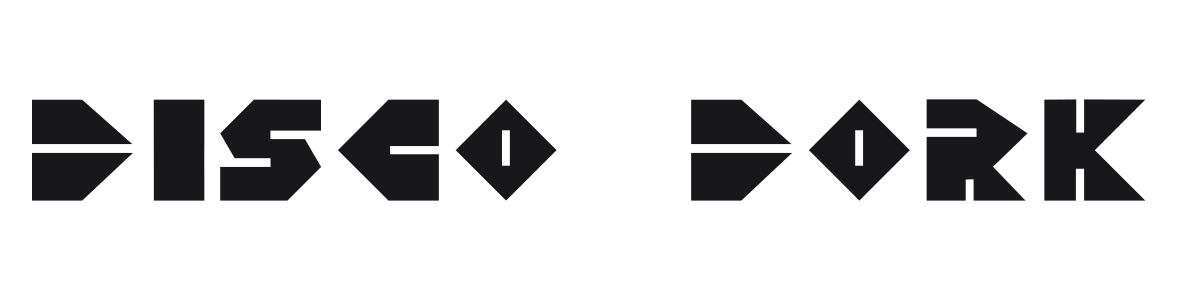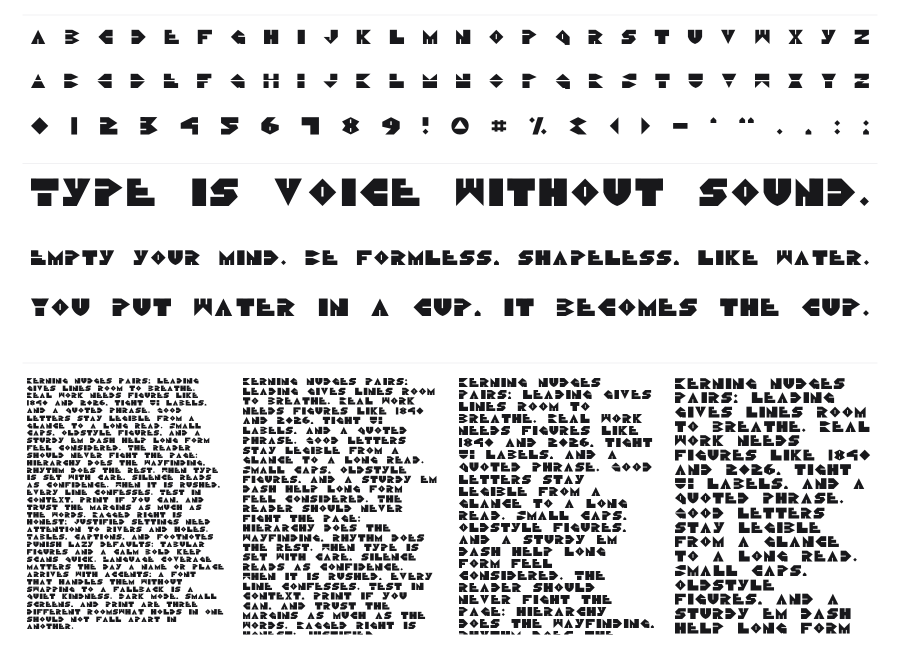
Disco Dork
Disco Dork is a bold geometric display face built from chunky rectangular forms with angular wedge cutouts at stroke intersections. The notched construction gives it an unmistakable 1970s disco flavor, somewhere between a nightclub marquee and a sci-fi credits sequence. It hits hard at large sizes and is best used sparingly.